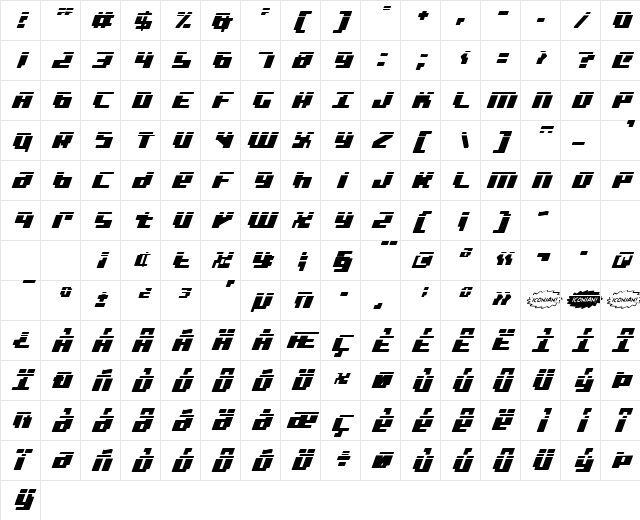
Complete bad robot Italic Laser glyph index. Displaying only characters natively supported by bad robot Italic Laser font.
bad robot is a composed and adaptable typeface that performs quietly and consistently across a wide range of design contexts. The slanted form adds forward momentum and visual energy.